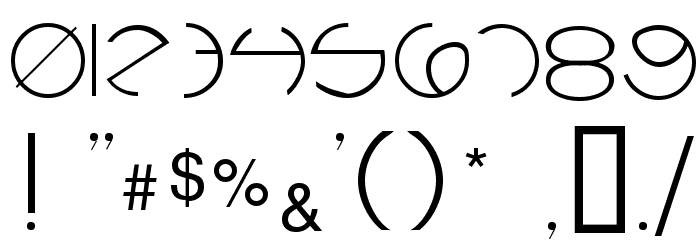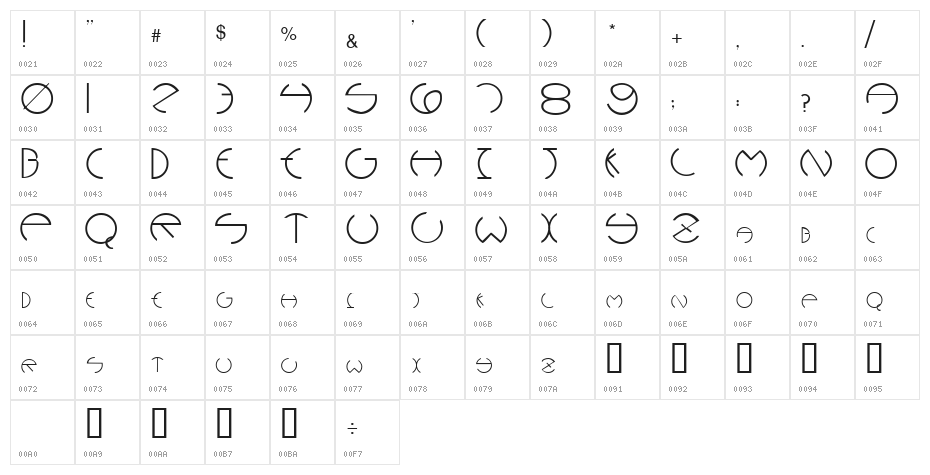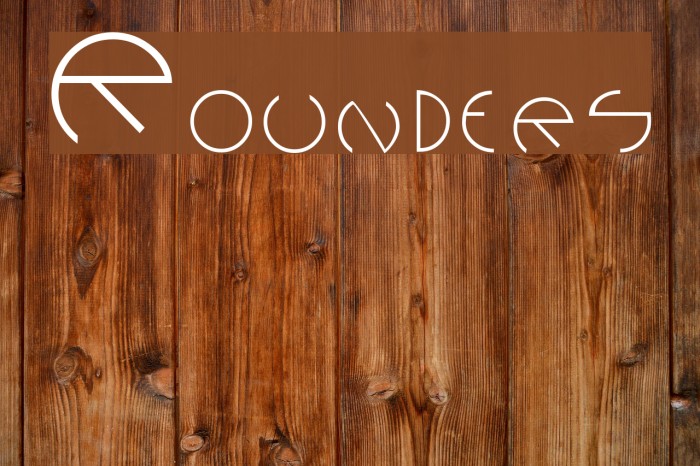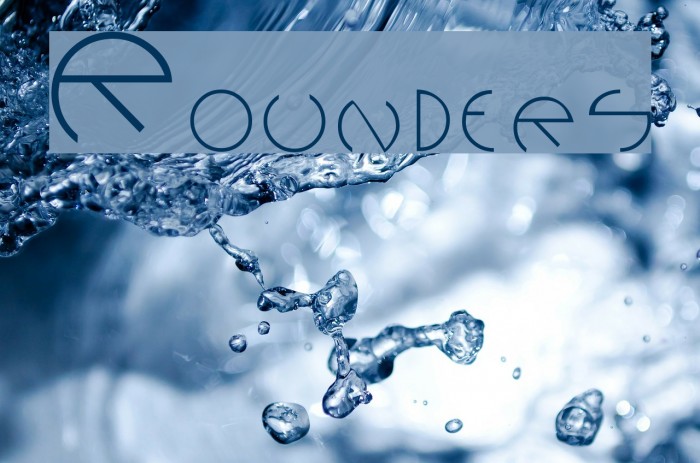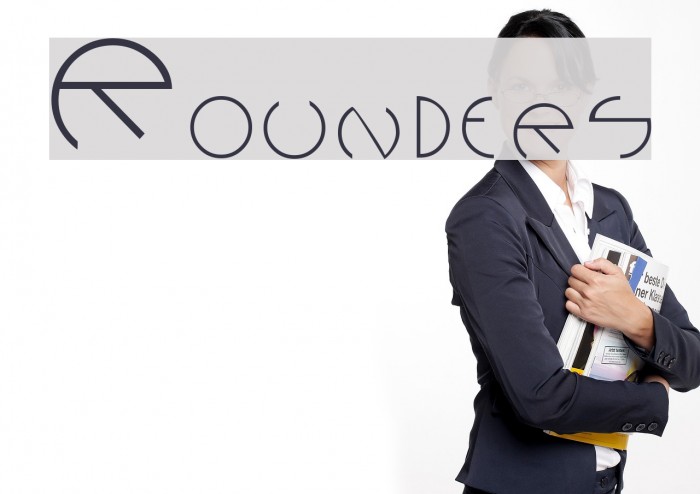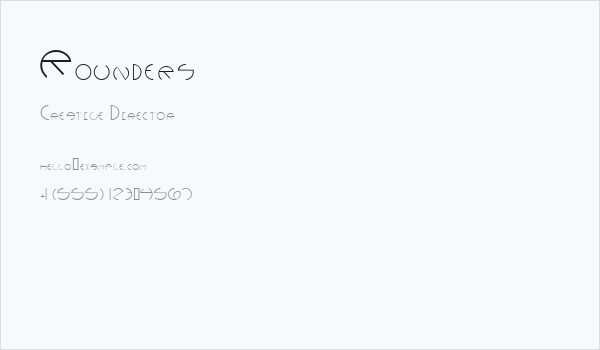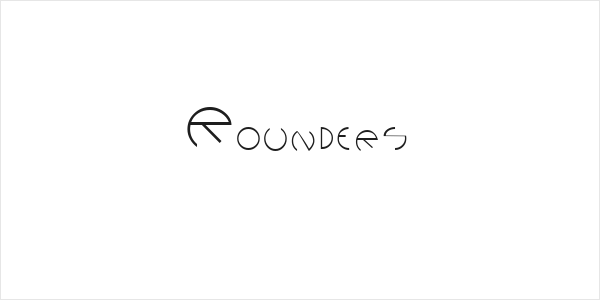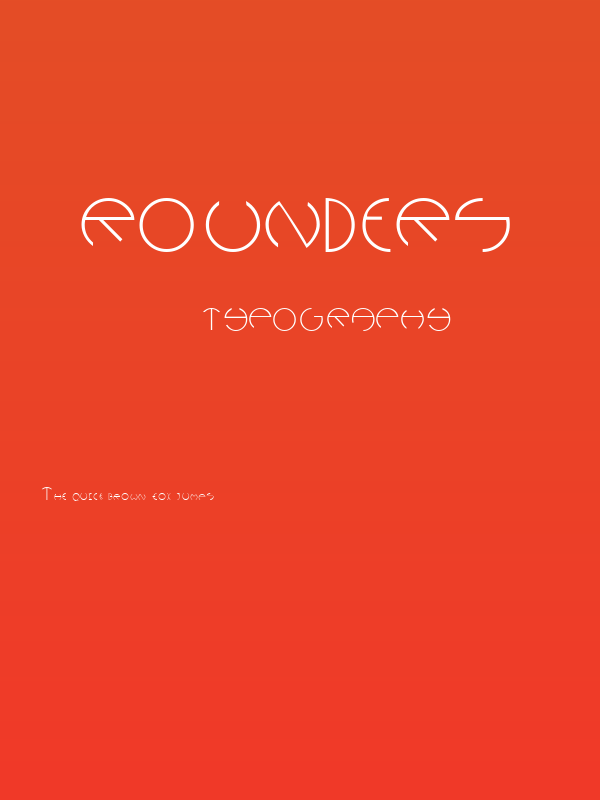
Rounders Font
Rounders Description
This font features a unique and modern design with geometric elements that create a futuristic and stylish appearance. The characters are composed of clean lines and curves, giving them a sleek and sophisticated look. The uppercase and lowercase letters maintain a consistent style, with rounded edges and a balanced structure. The numerals and special characters follow the same design principles, ensuring uniformity across all glyphs. This font is ideal for projects that require a contemporary and eye-catching aesthetic.
| Use Case | Logos, Posters, Digital media |
| Proposed Projects | Ideal for branding, logos, posters, and digital media that require a modern and stylish look. |